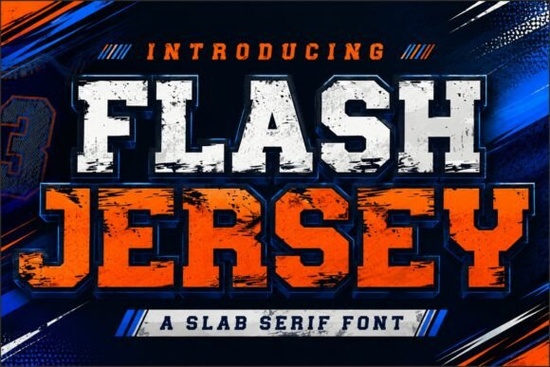
Flash Jersey Font is a standout choice for anyone looking to add a strong, athletic vibe to their designs. This bold slab serif font draws inspiration from classic sports jerseys and competitive branding, making it ideal for a wide range of creative projects. Whether you're designing a logo, creating merchandise, or working on promotional materials, Flash Jersey Font offers a unique blend of vintage and modern energy that catches the eye.
If you're a designer, craftsperson, or small business owner, this font can help you make a statement. Its rugged details and powerful letterforms are perfect for anything from team uniforms to social media graphics. The font’s versatility makes it a valuable addition to any digital toolkit, especially if you're focused on sports-related themes or high-impact visuals.
What Makes Flash Jersey Font Stand Out?
Flash Jersey Font is more than just a stylish typeface it's designed with purpose. The bold strokes and distinctive shapes give it a commanding presence that works well in both digital and print formats. It’s particularly effective for headlines, banners, and any design where you want to convey strength and energy.
One of the key strengths of this font is its ability to bridge the gap between retro and contemporary styles. The vintage varsity look pairs well with modern sports branding, offering a fresh take on traditional athletic aesthetics. This makes it a go-to option for esports teams, gaming companies, and brands looking to connect with younger, dynamic audiences.
Best Uses for Flash Jersey Font
Flash Jersey Font shines in several areas. Here are some of the most common applications:
- Sports logos: Create memorable and impactful team identities with this font.
- Jersey numbers and apparel: Perfect for custom t-shirts, hoodies, and other wearable designs.
- Posters and banners: Use it to grab attention in event promotions or marketing campaigns.
- Gaming and esports branding: Ideal for titles, team names, and in-game visuals.
- Social media content: Add a bold touch to your posts, covers, and profile pictures.
Its adaptability means it can be used across multiple platforms without losing its visual impact. Whether you're working on a website, a print ad, or a digital poster, Flash Jersey Font delivers consistent quality and style.
How to Get the Most Out of Flash Jersey Font
To make the most of this font, consider how it fits into your overall design strategy. Experiment with different sizes and layouts to see what works best for your project. Pairing it with simpler fonts can help balance the boldness of Flash Jersey Font while maintaining readability.
For those new to using slab serif fonts, it’s helpful to understand how they differ from other typefaces. Slab serifs like Flash Jersey Font tend to be more attention-grabbing and are often used in contexts where clarity and impact are important. This makes them a great choice for headlines, signage, and other prominent design elements.
Final Thoughts
Flash Jersey Font is a powerful tool for designers who want to create bold, athletic-themed visuals. Its unique combination of vintage charm and modern energy makes it suitable for a wide range of projects, from sports branding to digital marketing. Whether you're a professional designer or a hobbyist, this font can help elevate your work with its striking appearance and versatile use.
Consider adding Flash Jersey Font to your collection if you're looking for a reliable, high-impact typeface that stands out in any context. With its strong visual presence and practical applications, it’s a valuable asset for anyone involved in design, branding, or creative expression.
Before finalizing your design, make sure to test the font in different sizes and backgrounds to ensure it looks great in all scenarios. Always check for legibility, especially in smaller text sizes or when used alongside other elements.